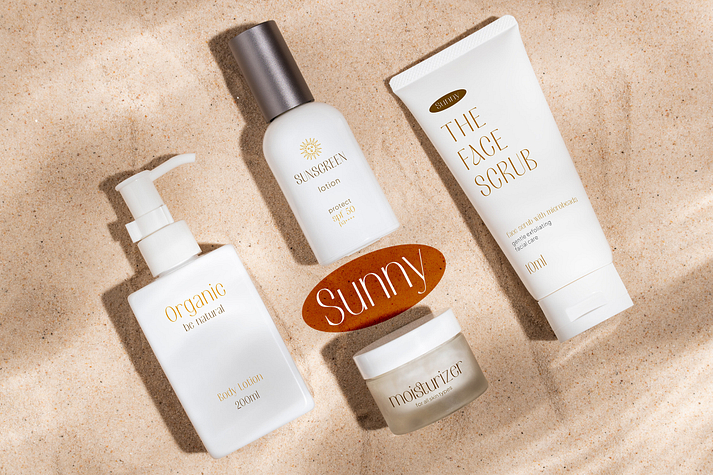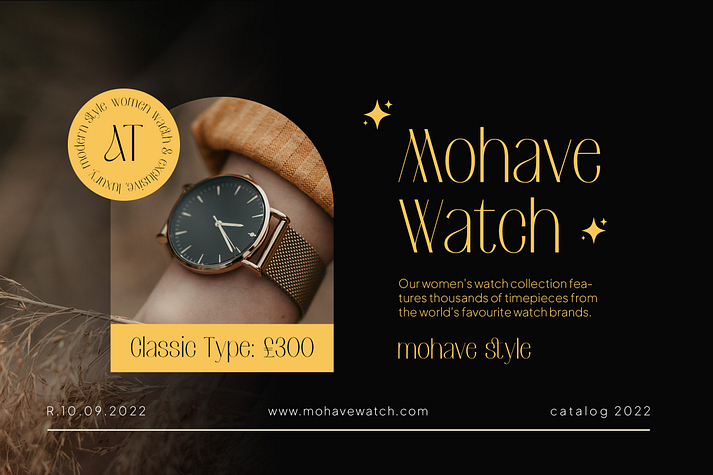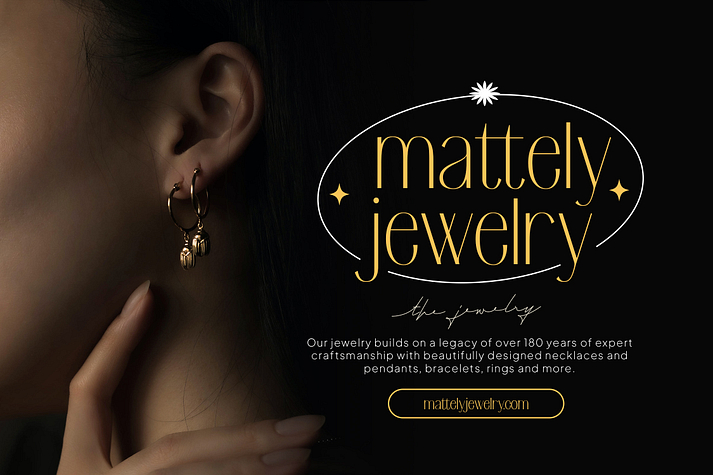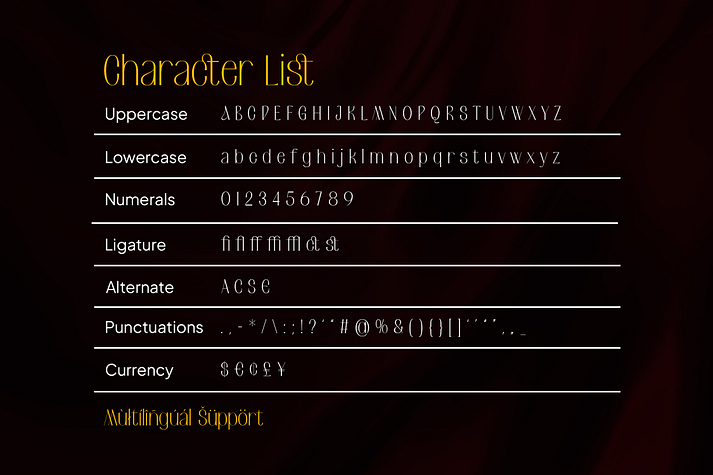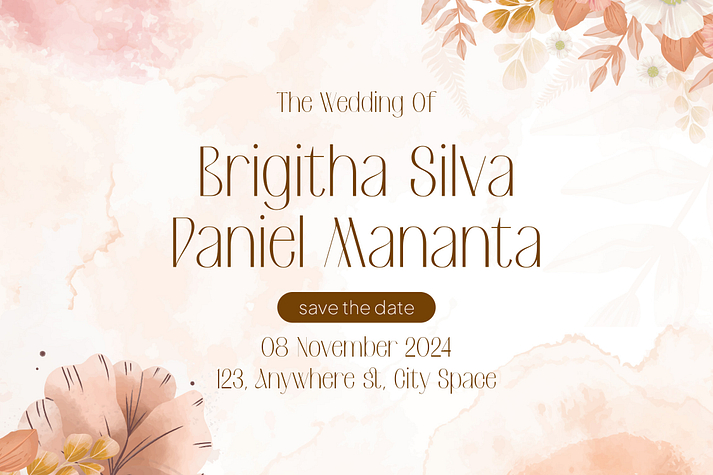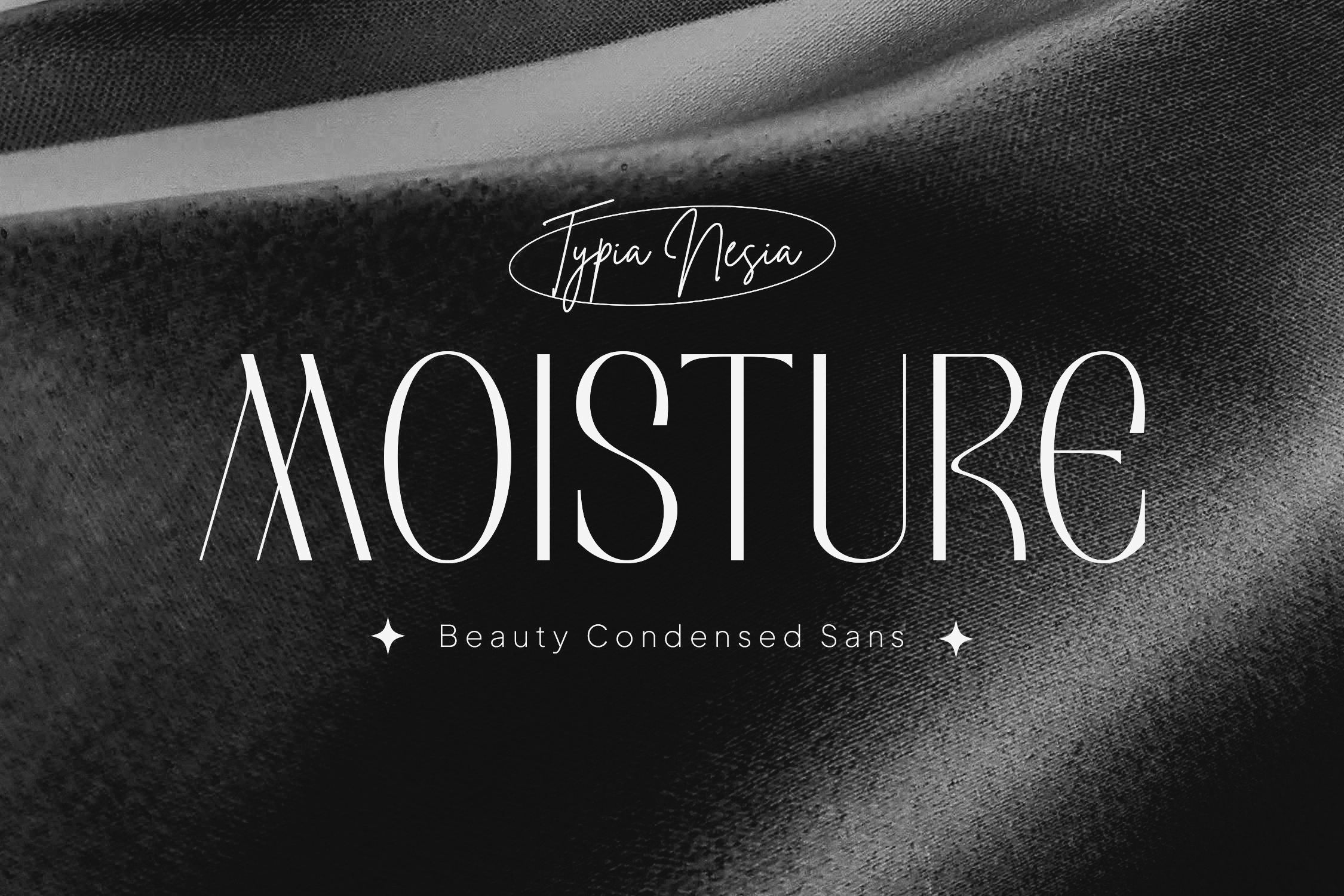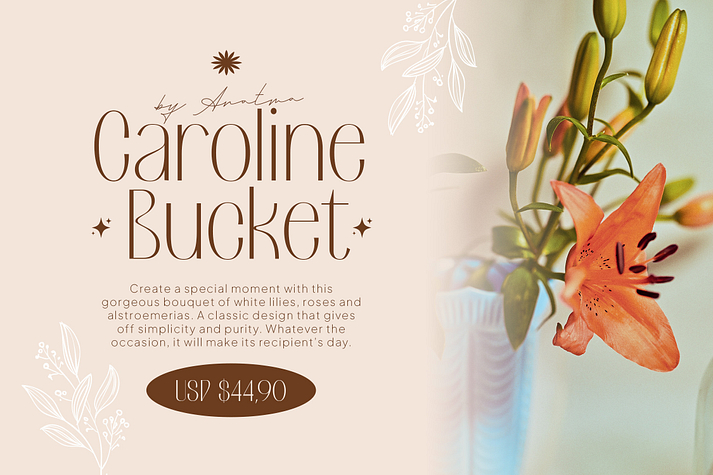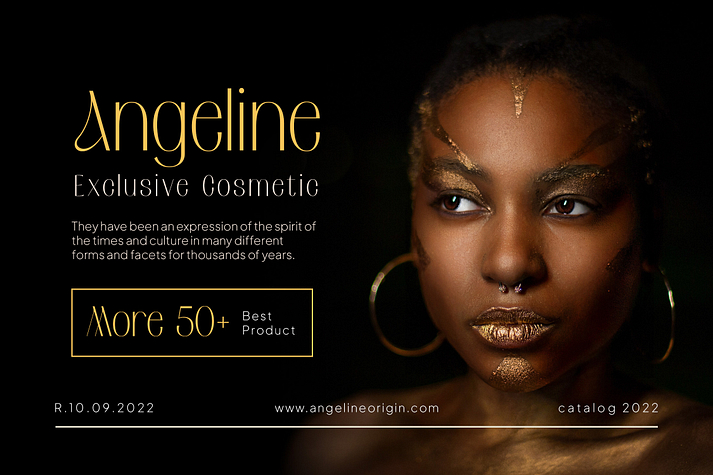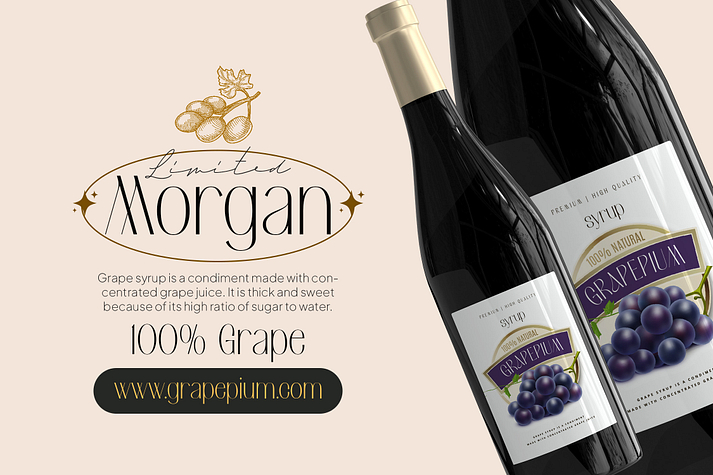
Moisture
Moisture is a serif font family published by Typia Nesia.
Moisture - Modern Elegant Luxury Condensed Thin Sans Serif - Beauty Fancy Girlboss Fashion Light Font
Moisture Sans is perfect for your up coming projects. Such as luxury logo and branding, classy editorial design, woman magazine, cosmetic brand, fashion promotional, art gallery branding, museum, historical of architectural, boutique branding, stationery design, blog design, modern advertising design, card invitation, art quote, home decor, book/cover title, special events and any more.